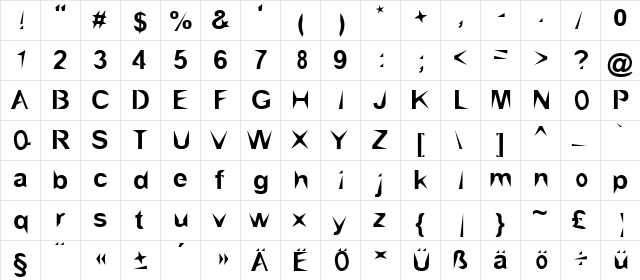
Brial Regular
Design Context for Brial Typeface
Brial is a composed and adaptable typeface that performs quietly and consistently across a wide range of design contexts.